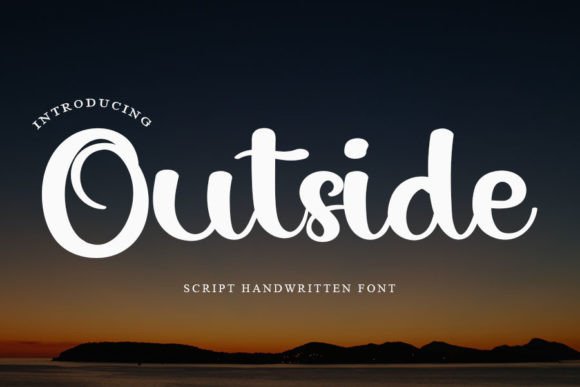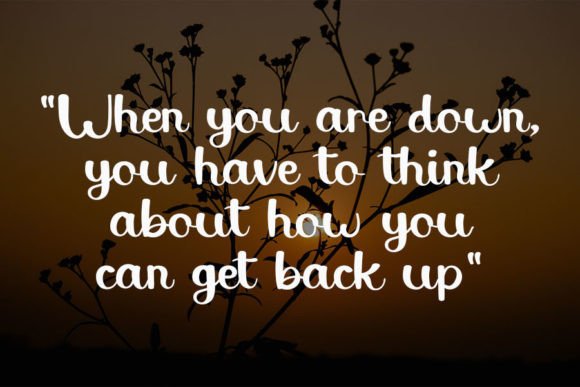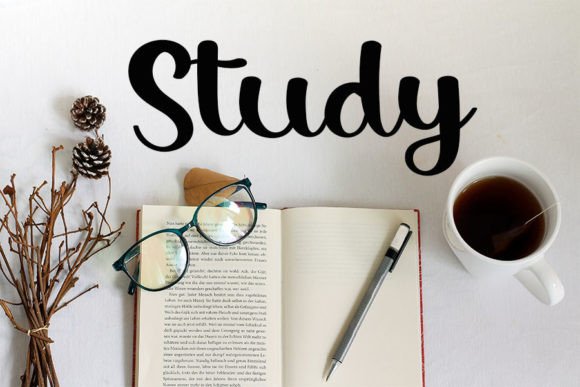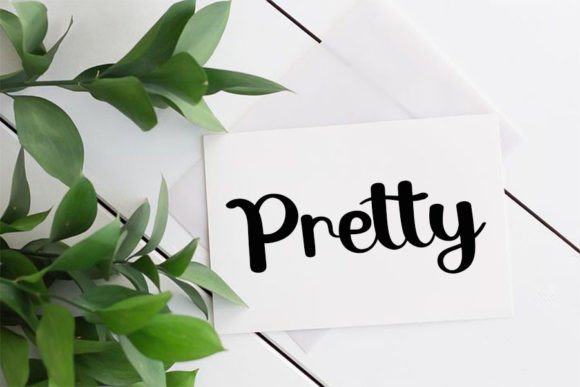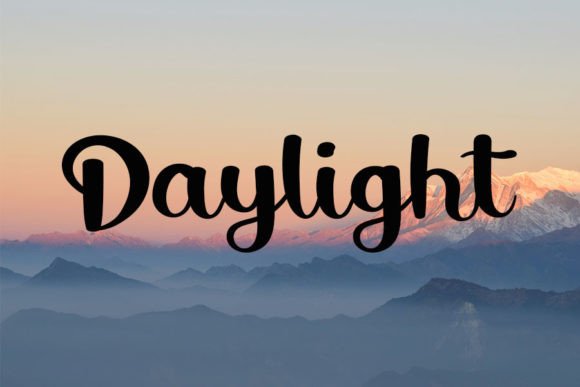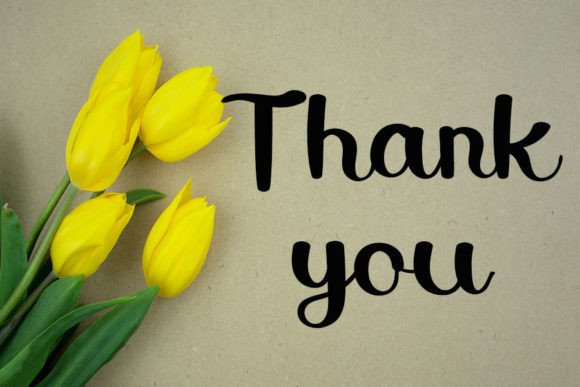
Outside Font
About Outside Font Download
The Outside Font Download is a cute and casual handwritten typeface designed to bring warmth and personality to your projects. With its incredibly friendly feel, this font is perfect for anyone who wants their text to look approachable, creative, and modern. Whether you are crafting social media graphics, wedding invitations, or handmade DIY projects, Outside ensures your words shine with authenticity.
A Friendly Handwritten Style
Unlike traditional fonts that feel rigid or overly formal, Outside embraces a casual handwritten look. Its playful curves and smooth strokes make every letter look natural, as though written by hand. This quality is what makes the Outside Font Download so versatile—it adapts easily to both personal and professional designs without losing its charm.
Perfect for Instagram and Social Media
Social media thrives on creativity and originality. If you want your Instagram posts or Pinterest graphics to stand out, this font is an excellent choice. The Outside Font Download works beautifully for quotes, captions, story highlights, or promotional visuals. Its friendly, casual style instantly captures attention and makes content feel more personal and engaging.
Ideal for DIY and Craft Projects
DIY lovers will appreciate how well Outside fits into creative crafts. From handmade cards and gift tags to scrapbook pages and wall art, this typeface adds an authentic touch. Its casual flow gives every project a personal feel, making it ideal for anyone who enjoys lettering and calligraphy-inspired designs.
Great for Calligraphy-Inspired Creations
If you enjoy calligraphy but need a digital version, the Outside Font Download delivers a similar look without requiring hours of practice. The flowing, handwritten strokes create a calligraphic vibe, which works well in projects such as wedding invitations, event signage, or decorative quotes. Designers love that they can achieve a polished calligraphy effect while still keeping text easy to read.
Versatile Across Different Projects
Outside is not limited to personal use—it is equally effective for professional projects. Small businesses can use this font in branding, logos, packaging, or promotional flyers to create a friendly identity. Bloggers, influencers, and content creators can apply it to headers and graphics to give their brand a unique handwritten style. Thanks to its adaptability, the Outside Font Download is a reliable choice for a wide range of design work.
Why Designers Choose Outside
Designers often look for fonts that are stylish but also functional. Outside strikes this balance well. While it has the charm of a handwritten typeface, it remains highly readable in both small and large text sizes. This makes it useful for anything from Instagram captions to poster headlines. Its friendly personality combined with practical readability makes the Outside Font Download a must-have for creative professionals.
Add a Personal Touch to Your Designs